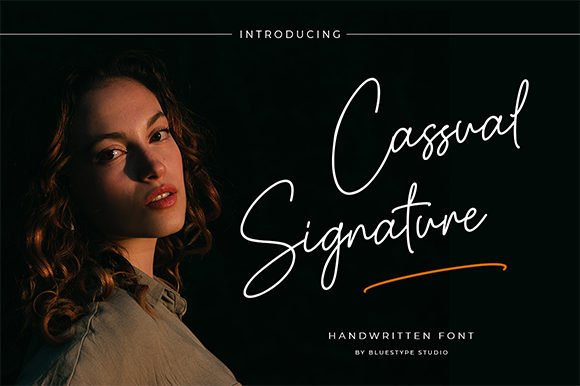
The Perfect Font for Your Creative Touch
Have you ever stared at a blank canvas, feeling the urge to create something beautiful and unique? That’s exactly where I was when I stumbled upon the Cassual Signature Font. Its delicate, handwritten style instantly captivated me, and I knew I had to share it with fellow designers and creatives.
The Cassual Signature Font is a versatile, thin, and elegant script font designed to add a touch of sophistication to any project. Whether you’re working on a wedding invitation, a personal logo, or a social media post, this font will elevate your design to the next level. For designers, having the right font can make all the difference in conveying a message or creating an emotional connection with the audience.
Cassual Signature Font Key Features
- Unique Characteristics: The font’s casual, handwritten feel, with subtle imperfections and variations, adds a touch of personality to any text.
Casual Signature Font Review
Overall, I think the Casual Signature Font is a nice addition to any designer’s toolkit. It’s a solid choice for creating relaxed, friendly typography that’s perfect for personal projects or branding for smaller businesses. ✨
- The font’s rounded edges and soft curves give it a warm, approachable feel that’s great for casual projects.
- The font is highly legible, even at smaller font sizes, making it a good choice for body text or captions.
- The font’s versatility allows it to work well in both digital and print applications.
- The font may not be as effective for formal or professional projects, where a more serious or traditional font may be more suitable.
- The font’s casual feel may not translate well to certain industries or brands that require a more formal tone.
- The font may not be as customizable as some other fonts, limiting its ability to be tailored to specific design needs.
Overall, I’d recommend the Casual Signature Font to designers working on personal or small business projects that require a friendly, approachable tone. While it may not be the best choice for every project, it’s a solid addition to any designer’s toolkit.
Casual Signature Font: A Practical Application Guide
The Casual Signature Font is ideal for personal and business use cases, such as:
- Creating a professional business card
- Designing a personal logo
- Adding a signature to a document or email
Alternatives to Casual Signature Font
Great Vibes is a beautiful, handwritten script font that adds a touch of elegance to any design. It’s perfect for creating invitations, quotes, and other decorative elements. Great Vibes is more ornate than Casual Signature Font, with more intricate details and flourishes.
Pacifico is a modern, elegant script font that works well for headings and titles. It’s a great choice for designs that need a touch of sophistication and refinement. Compared to Casual Signature Font, Pacifico is more refined and less casual, making it suitable for formal designs.
Playfair Display is a luxurious, high-end font that’s perfect for creating a sense of drama and sophistication. It’s a great choice for headings, titles, and other design elements that need to stand out. Unlike Casual Signature Font, Playfair Display is more formal and less casual, making it suitable for high-end designs.